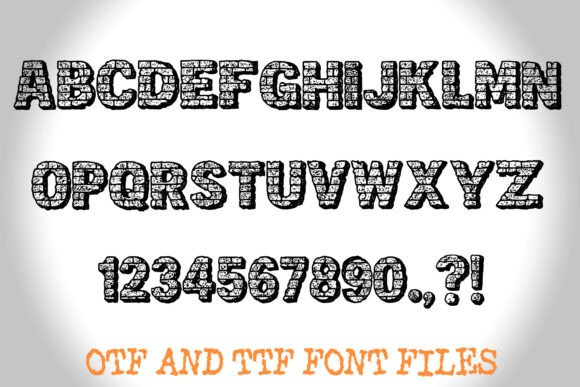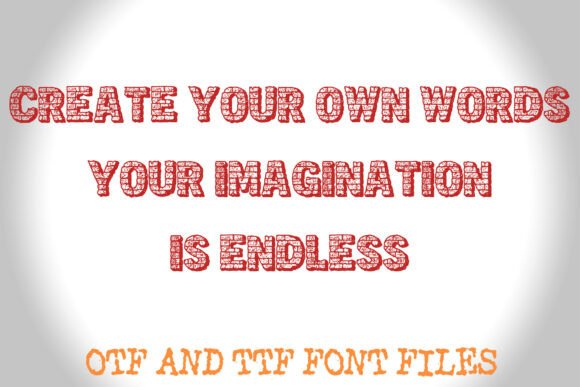
Introduction to House Brick Font
House Brick Stone Alphabet Lettering ABC Text Font OTF A rugged and robust display font, House Brick is a striking typeface that builds a foundation of strength and character.
Each letter is meticulously crafted to mimic the appearance of a solid brick wall, complete with textured, mortar-like outlines and a rough, weathered finish This font exudes a sense of permanence and industrial grit, making it an excellent choice for designs that require a powerful, grounded aesthetic.